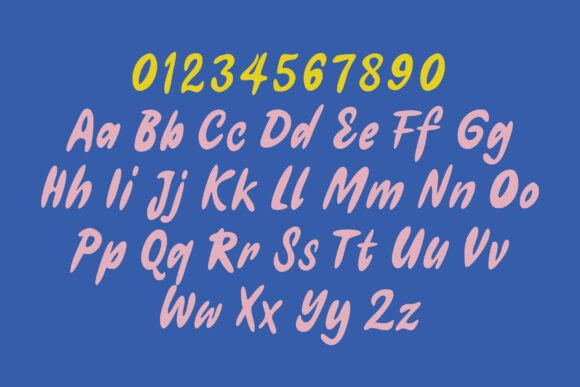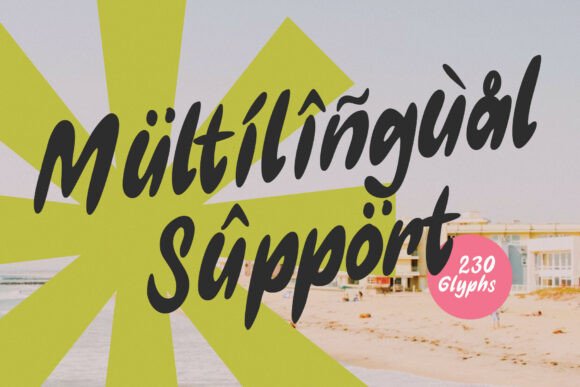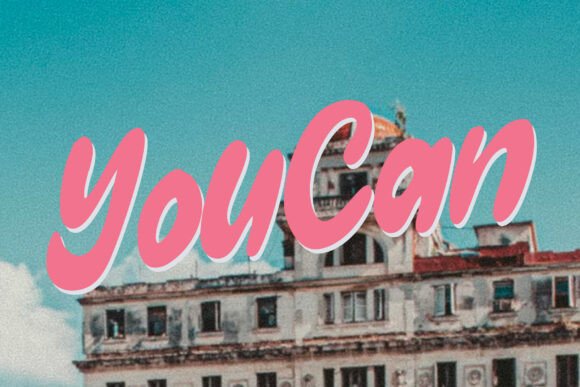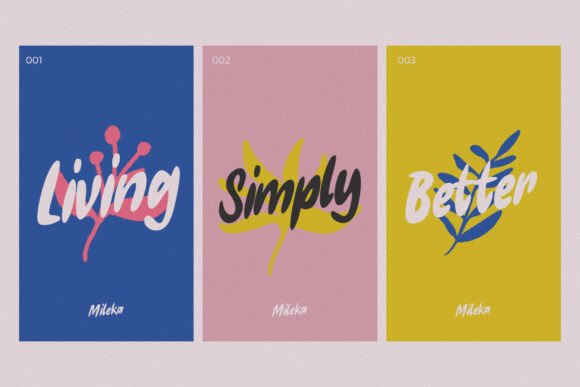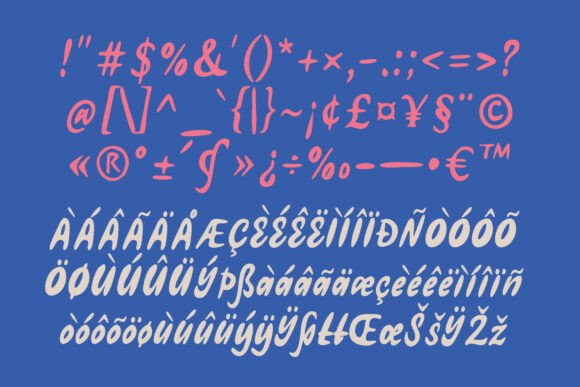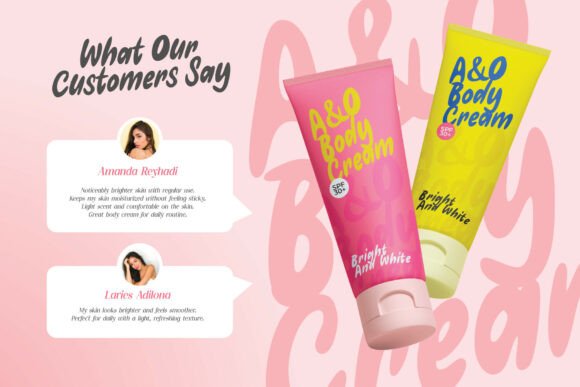
Introduction to Mileka Font
Mileka – Handmade Brush Script Font Mileka is a handmade brush script font with a bold, smooth, and playful character.
Featuring rounded strokes and a lively handwritten flow, this font brings a cheerful and friendly vibe to your designs Its expressive brush style feels natural and energetic, making it perfect for fun, modern, and creative projects.